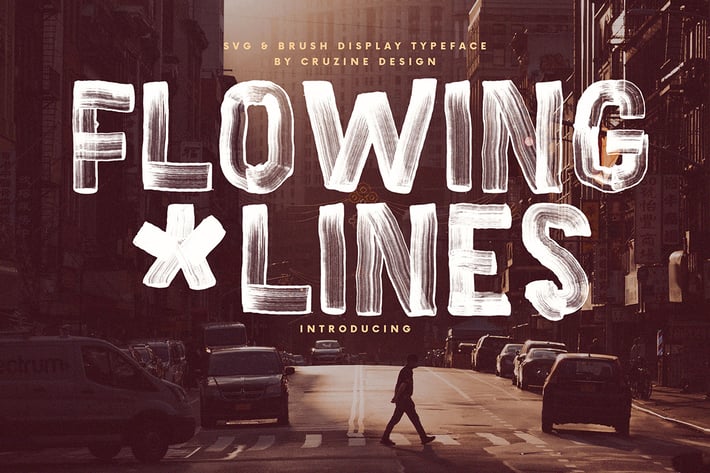
Flowing Lines Brush & SVG Font
Brush, rough or grunge style sans serif display font for your new projects. Handwritten with bold marker. Great for grunge, urban or artistic projects!